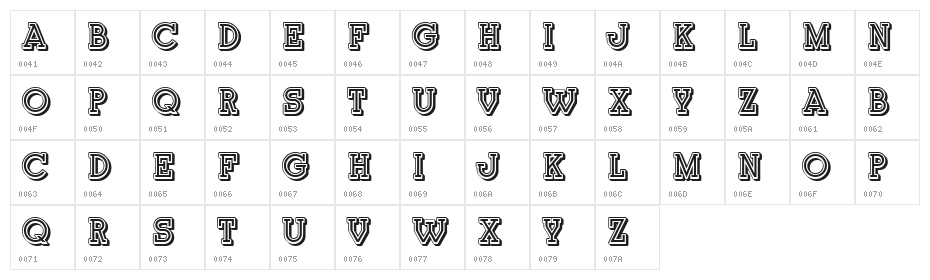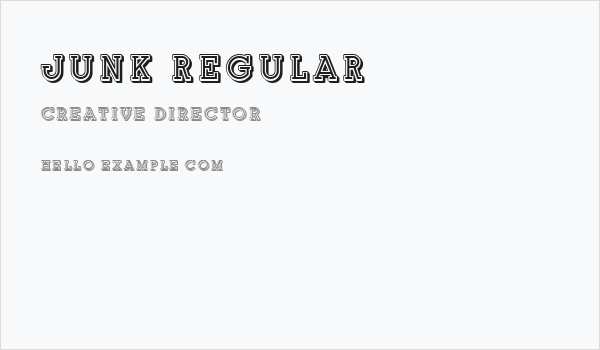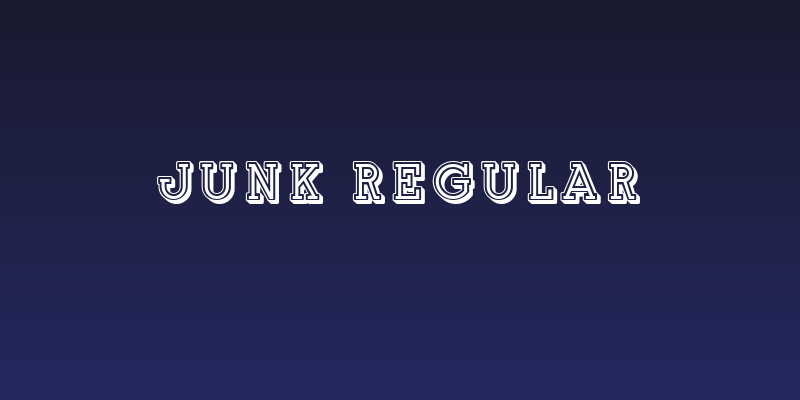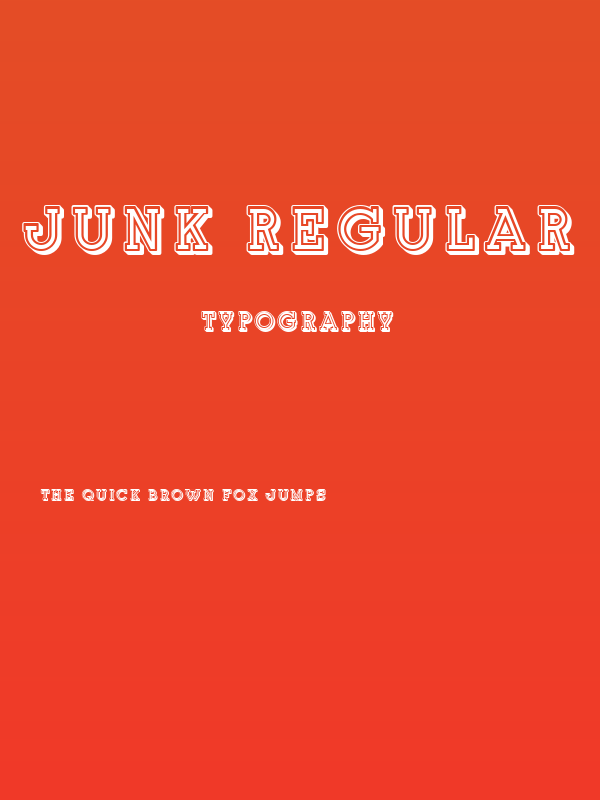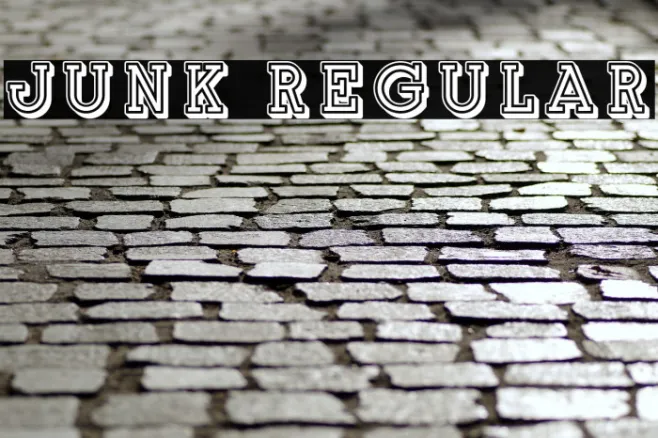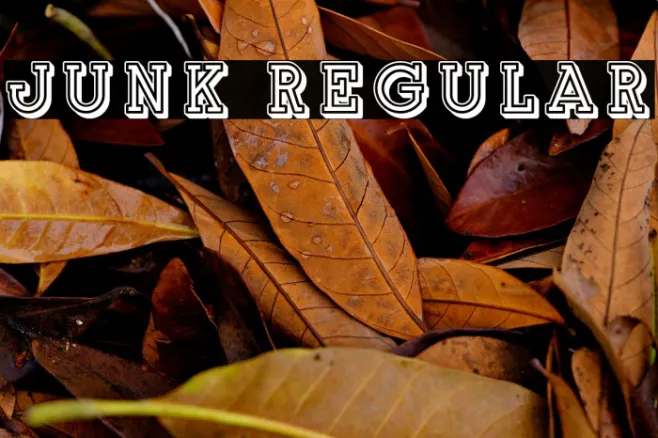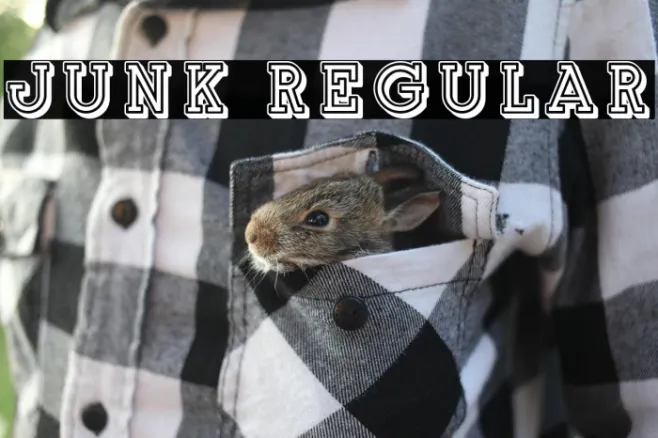
Junk Regular Font
Junk Regular Description
This font features a bold, decorative style with a strong presence. Each character is outlined with a double border, creating a three-dimensional effect that adds depth and visual interest. The letters are uppercase, with consistent height and width, giving a uniform appearance. The strokes are thick, contributing to the font's boldness, while the inner lines add a touch of intricacy. This font is ideal for making a statement, as its unique design draws attention and stands out in any context.
| Proposed Projects | Ideal for posters, headlines, logos, and any design requiring a bold, eye-catching typeface. |